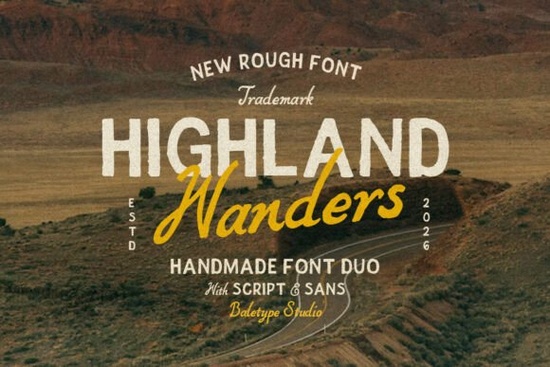
If you're looking for a hand-drawn font that feels personal but still works well across branding, packaging, or greeting cards, Highland Wanders might be just what your project needs. It’s not overly stylized or hard to read instead, it offers two complementary styles: a clean sans and a relaxed italic script. Together, they give your designs a human touch without sacrificing clarity.
This font duo is especially handy if you run a small business or create handmade goods. Whether you’re designing labels for artisanal candles, printing quotes on tote bags, or crafting wedding invitations, Highland Wanders adds warmth while staying legible. Plus, it supports multiple languages, which is great if your audience isn’t limited to English speakers.
What makes Highland Wanders work for real-world projects?
Unlike fonts that look great only in headlines or large sizes, Highland Wanders holds up even in smaller applications like tags or packaging text. The rough edges mimic natural handwriting, but the letterforms remain consistent enough for professional use. That balance is rare and useful.
For example, you could pair the sans version with a minimalist logo and use the italic script for social media captions or product descriptions. The contrast between structure and spontaneity creates visual interest without overwhelming your layout.
How does it compare to other hand-drawn sans-serif fonts?
If you’ve browsed Creative Fabrica’s collection, you’ve probably seen options like Nugget, which leans more geometric, or Qunotz, known for its quirky terminals. Crisp Edge offers sharp precision, while Katur Coffee brings cozy café vibes. Each has its place but Highland Wanders stands out for its understated authenticity.
It doesn’t try to be “trendy.” Instead, it focuses on versatility. You won’t need to tweak spacing or worry about readability at 10pt. That reliability saves time, especially if you’re managing multiple products or client requests.
Who should consider using this font?
- Print-on-demand sellers: Use it for quote mugs, T-shirts, or wall art where a personal feel boosts appeal.
- Small business owners: Ideal for bakery labels, boutique packaging, or handmade soap branding.
- Crafters and card makers: The script pairs beautifully with watercolor backgrounds or kraft paper textures.
- Freelance designers: A dependable go-to when clients want “handmade” without messy illegibility.
Tips for pairing and styling Highland Wanders
Keep backgrounds simple. This font shines against neutral tones or subtle textures (think linen, wood grain, or soft gradients). Avoid busy patterns they’ll compete with the hand-drawn details.
When mixing the two styles:
- Use the sans version for headings or key info (like prices or names).
- Reserve the italic script for short phrases, signatures, or decorative accents.
- Don’t overuse the script it’s most effective in small doses.
Also, test printouts before finalizing physical products. Some digital previews don’t fully capture how the rough edges translate on matte paper versus glossy finishes.
If yes to all three, Highland Wanders is a practical, expressive choice that won’t date quickly. It’s the kind of font you’ll return to again and again not because it’s flashy, but because it simply works.